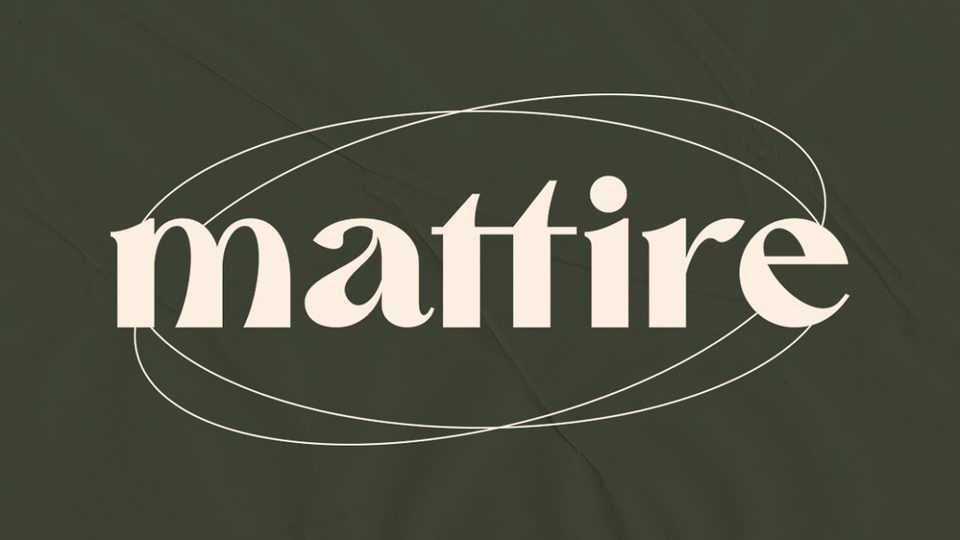
Download Mattire font, a stylish typeface that is both classic and minimal. Mattire is a bold, high contrast font that is perfect for header magazine, web, feminine logo marks & editorial design.